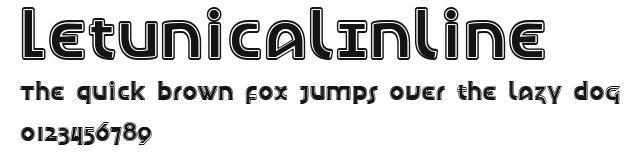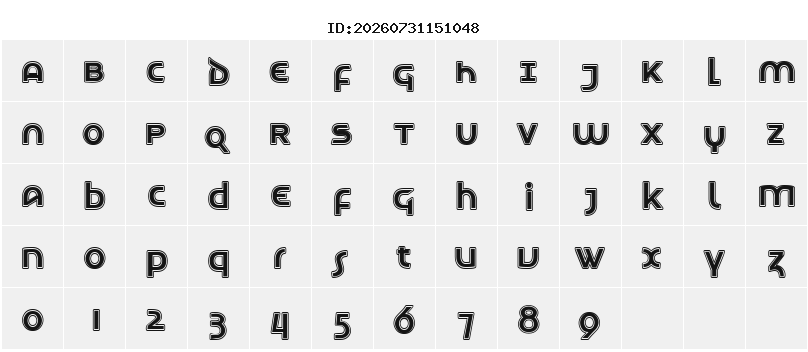
• Font Name: LetunicalInline
LetunicalInline.ttf is a modern, elegant sans-serif font designed for ultimate readability and visual harmony. Perfect for branding, headlines, web design, and print materials.